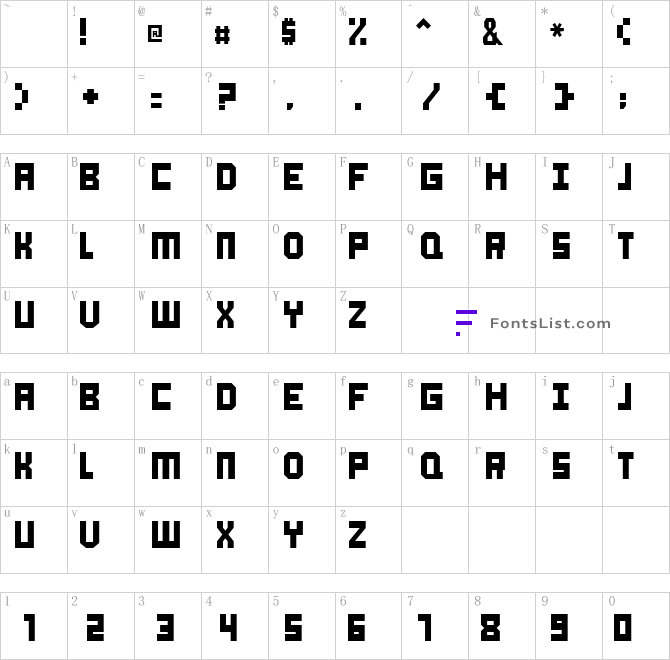
- Font Name:A Okay
A-Okay.ttf is a very beautiful artistic font, A-Okay.ttf is widely used in the design and printing of various books and pictures,A-Okay.ttf has a strong visual impact,A-Okay.ttf is a commonly used font in newspapers, magazines and books, and is used in posters, e-commerce Poster design, store design, logo design, font design and other fields.A-Okay.